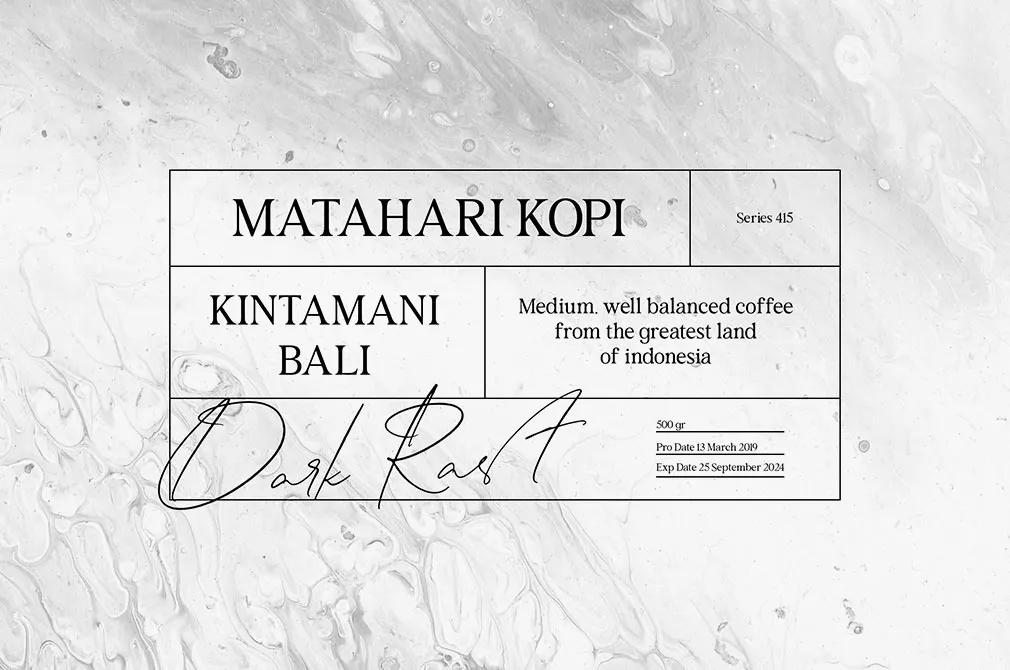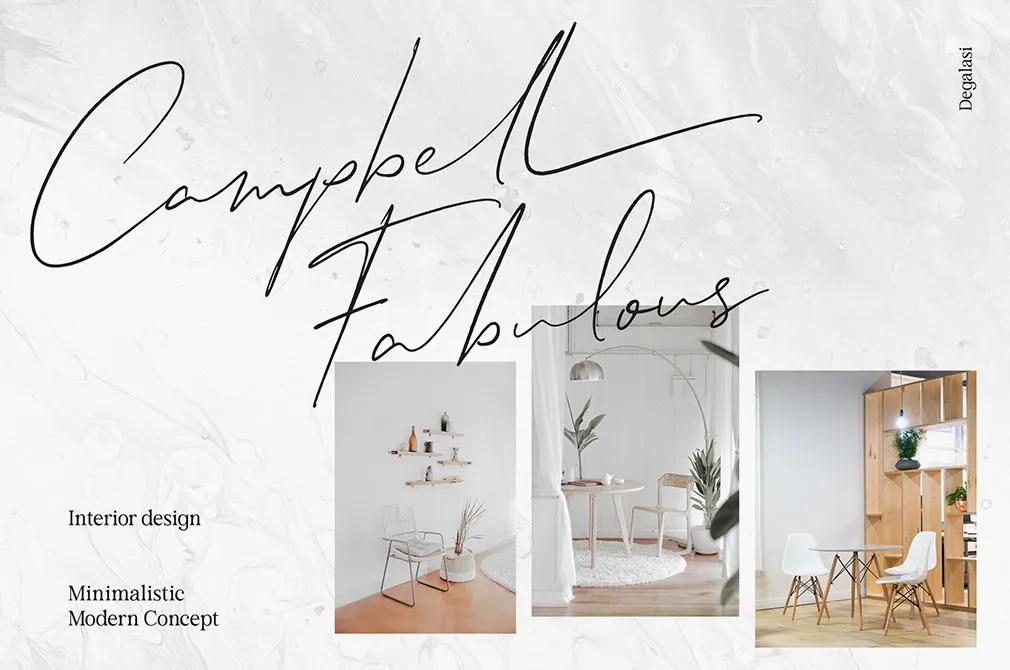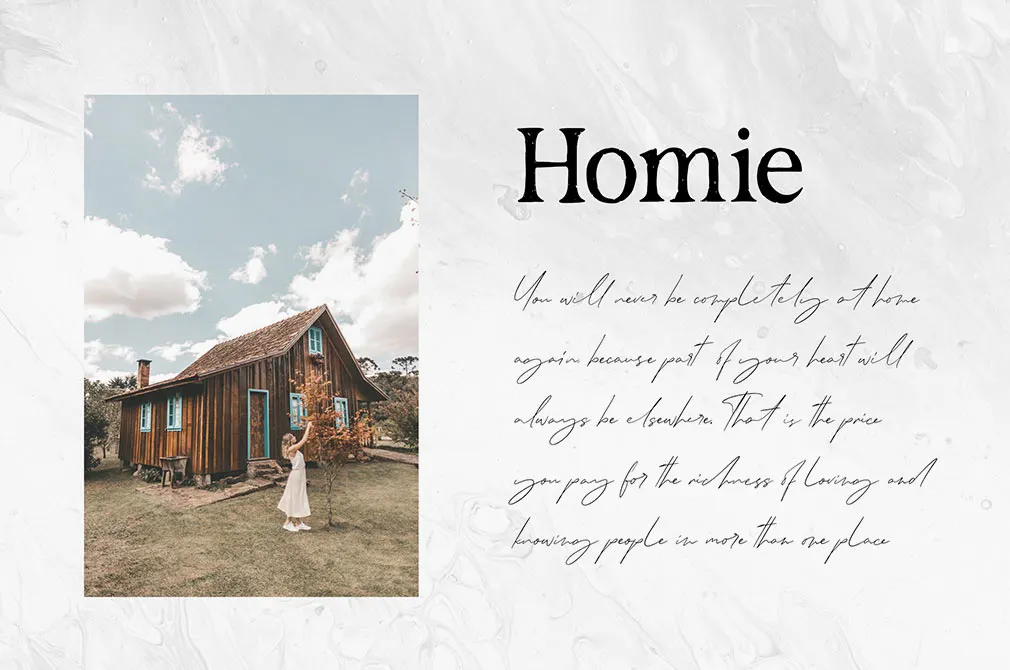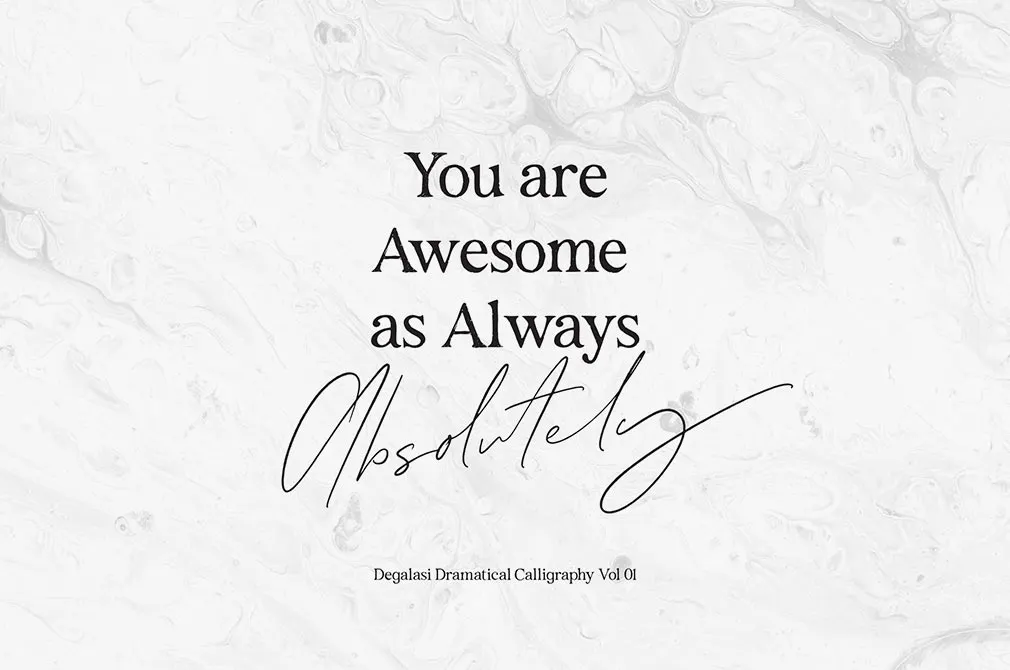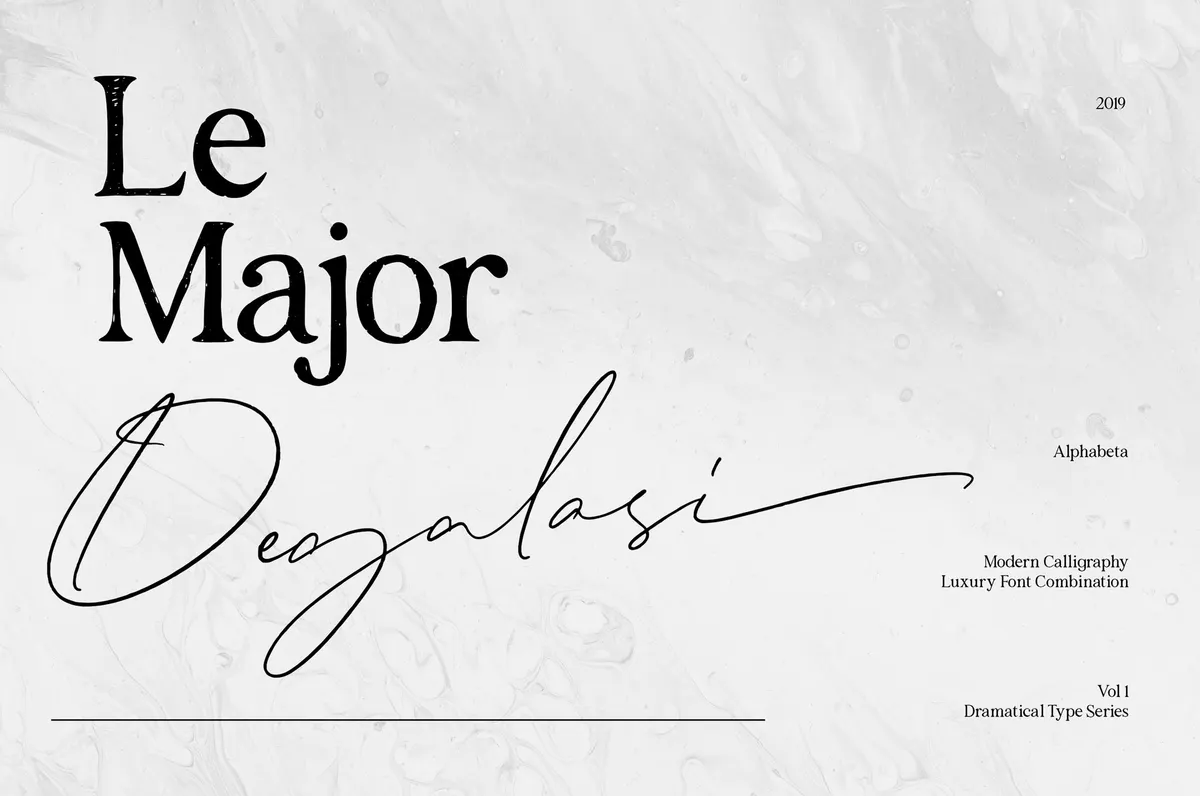
Degalasi Script Font
Inspired by the original text of Indonesian Independence proclamation. Comprising dramatical undertones with a contemporary touch, this script font stands out with its uniqueness.
So, to create a real hand-lettered effect from this font, you get 177 ligatures and stylistic set. These are the key tools for making your design look fancy. The design is carried out the way that you can mix and match characters to reach the proper combination, fitting into your composition. Degalasi is perfect for branding, logos, badges, and anything, which needs light touch.